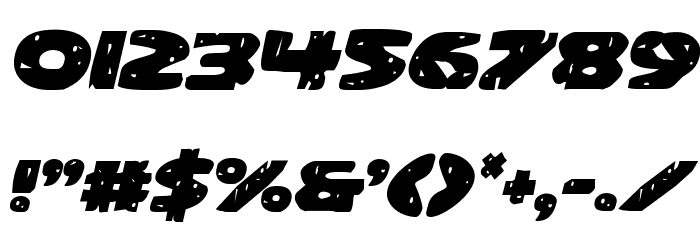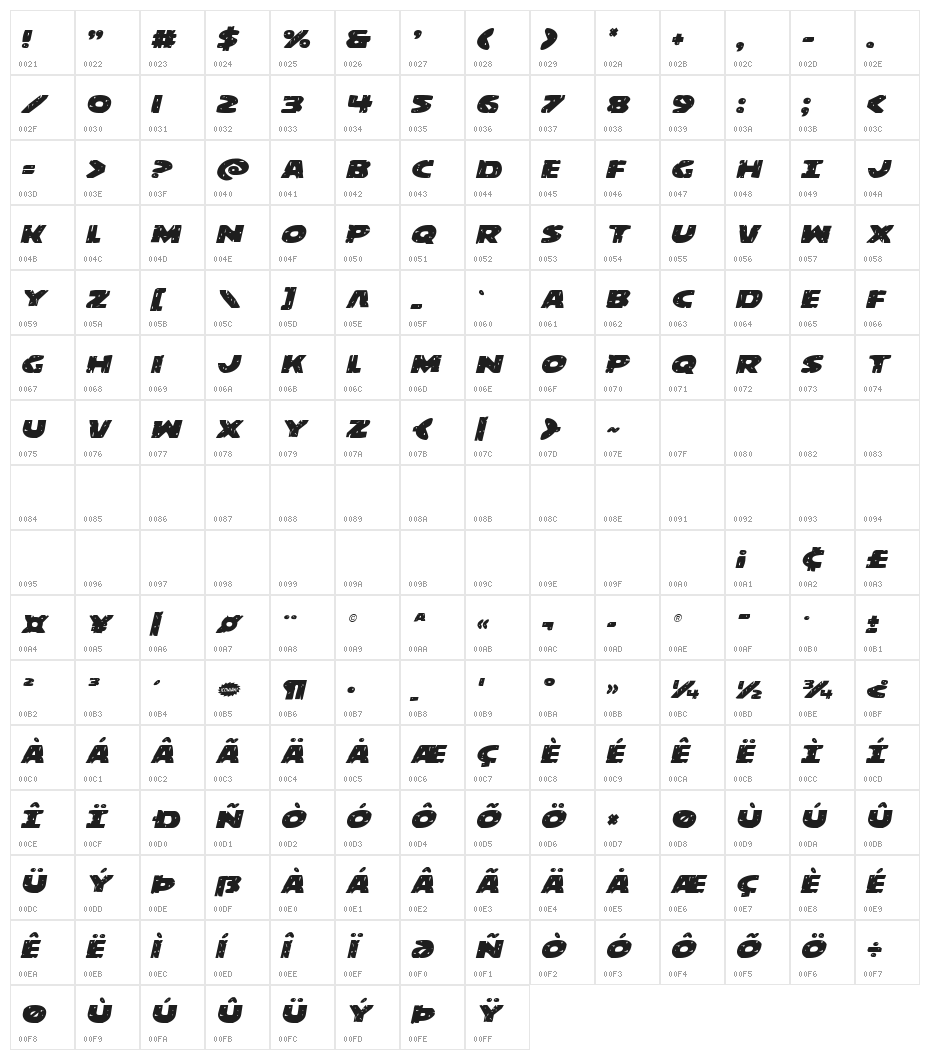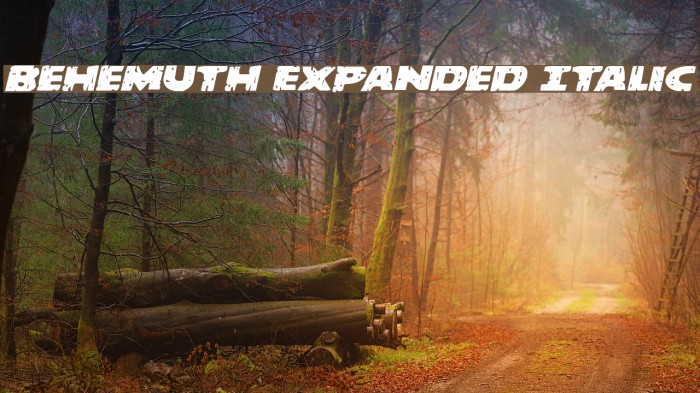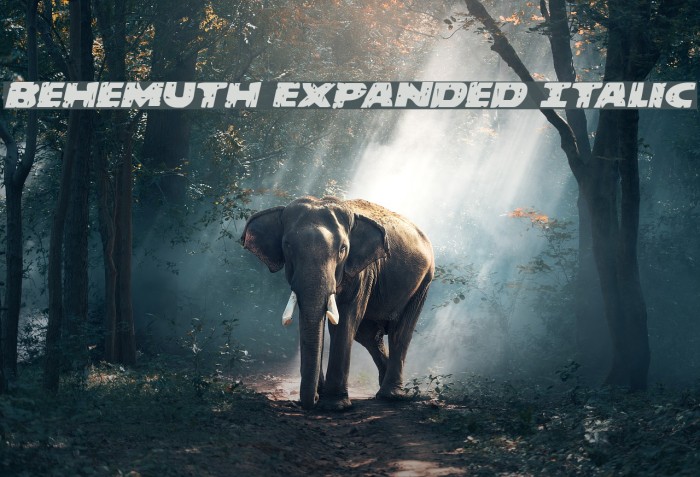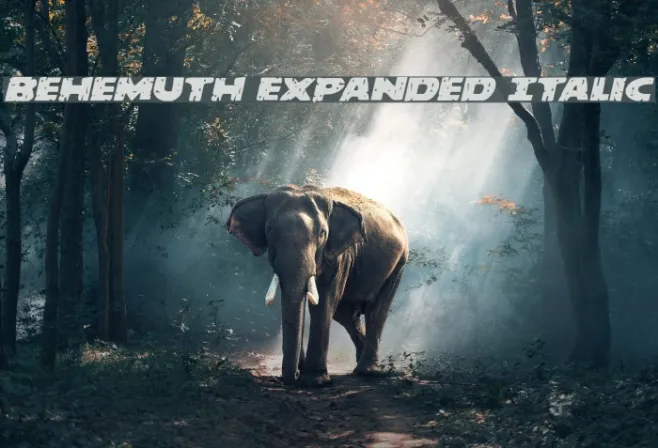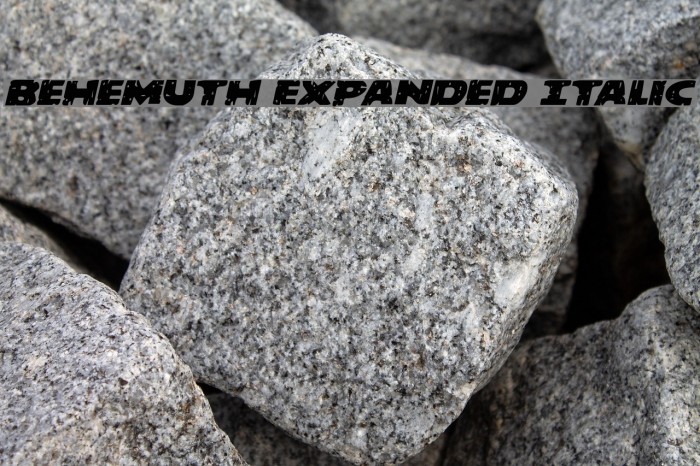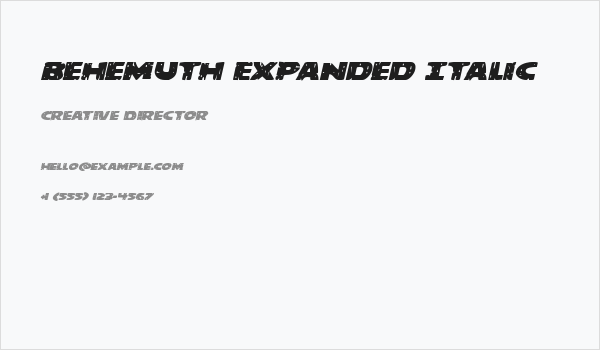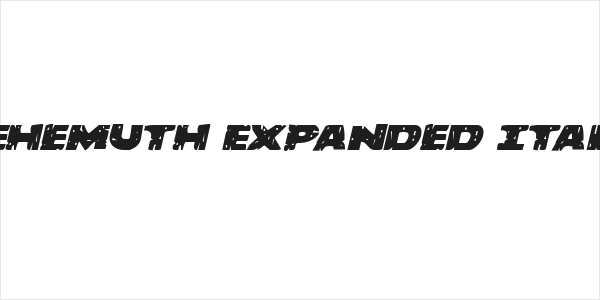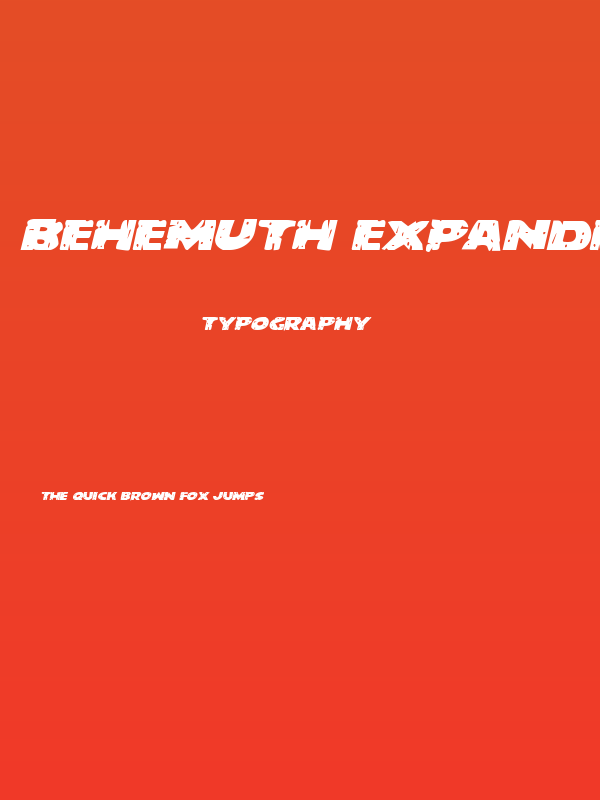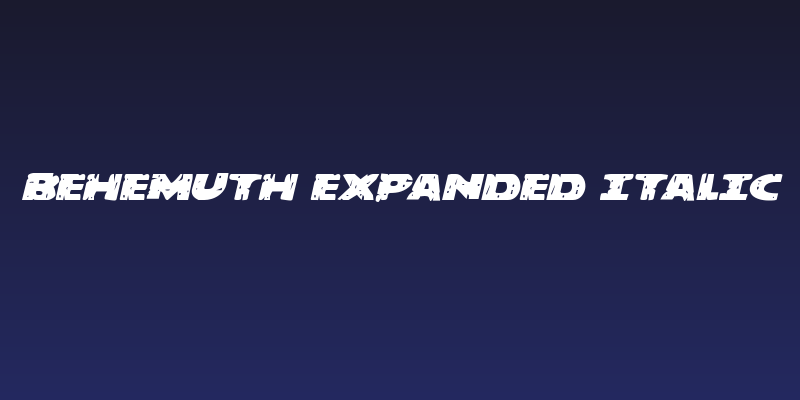
Behemuth Expanded Italic Font
Behemuth Expanded Italic Description
This font features a bold and dynamic style with a distinct expanded and italicized form. The characters are heavily stylized with a playful and decorative appearance, incorporating unique cut-out patterns that add a sense of movement and energy. The uppercase and lowercase letters maintain a consistent design, ensuring readability while still offering a creative flair. The numbers and special characters follow the same aesthetic, making them suitable for a variety of creative applications. The font's boldness and unique style make it stand out, perfect for projects that require a strong visual impact.
| Proposed Projects | Ideal for poster designs, branding, video game graphics, and any project needing a bold, eye-catching typeface. |